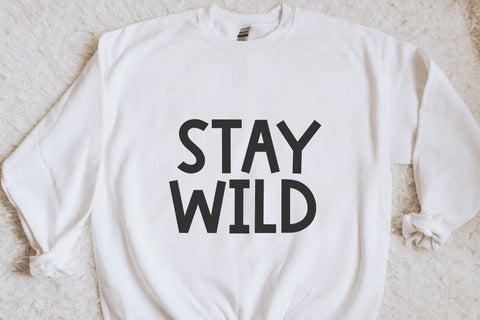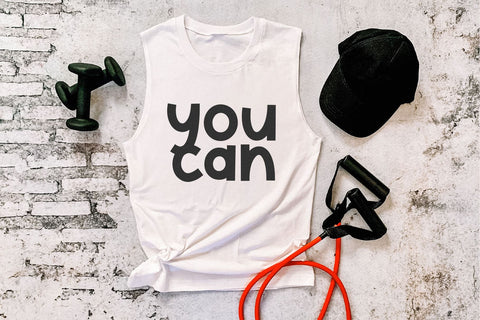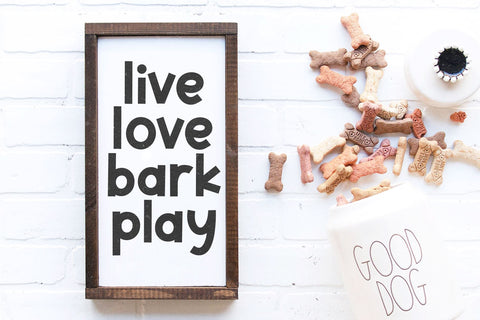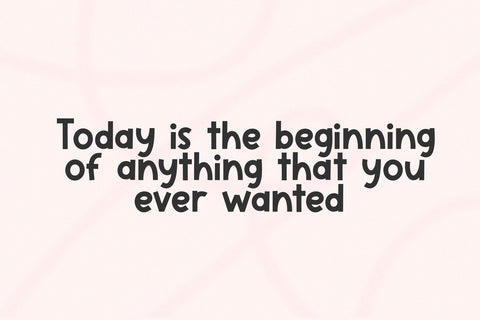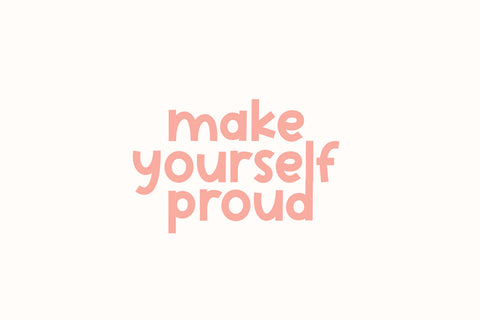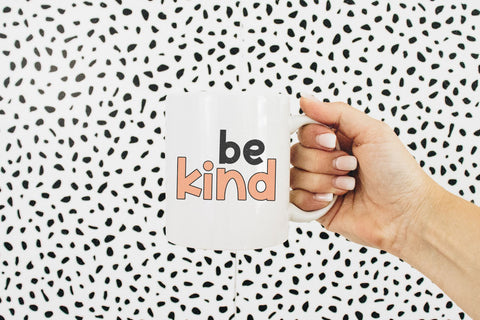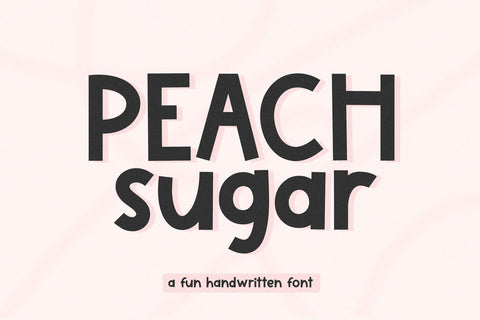
Peach Sugar - Fun Handwritten Font
Peach Sugar is fun handwritten font!
This font is perfect for cricut projects, procreate designs, shirts, svg designs, home decor, branding, logos, invitations and more!
Most accent characters included.